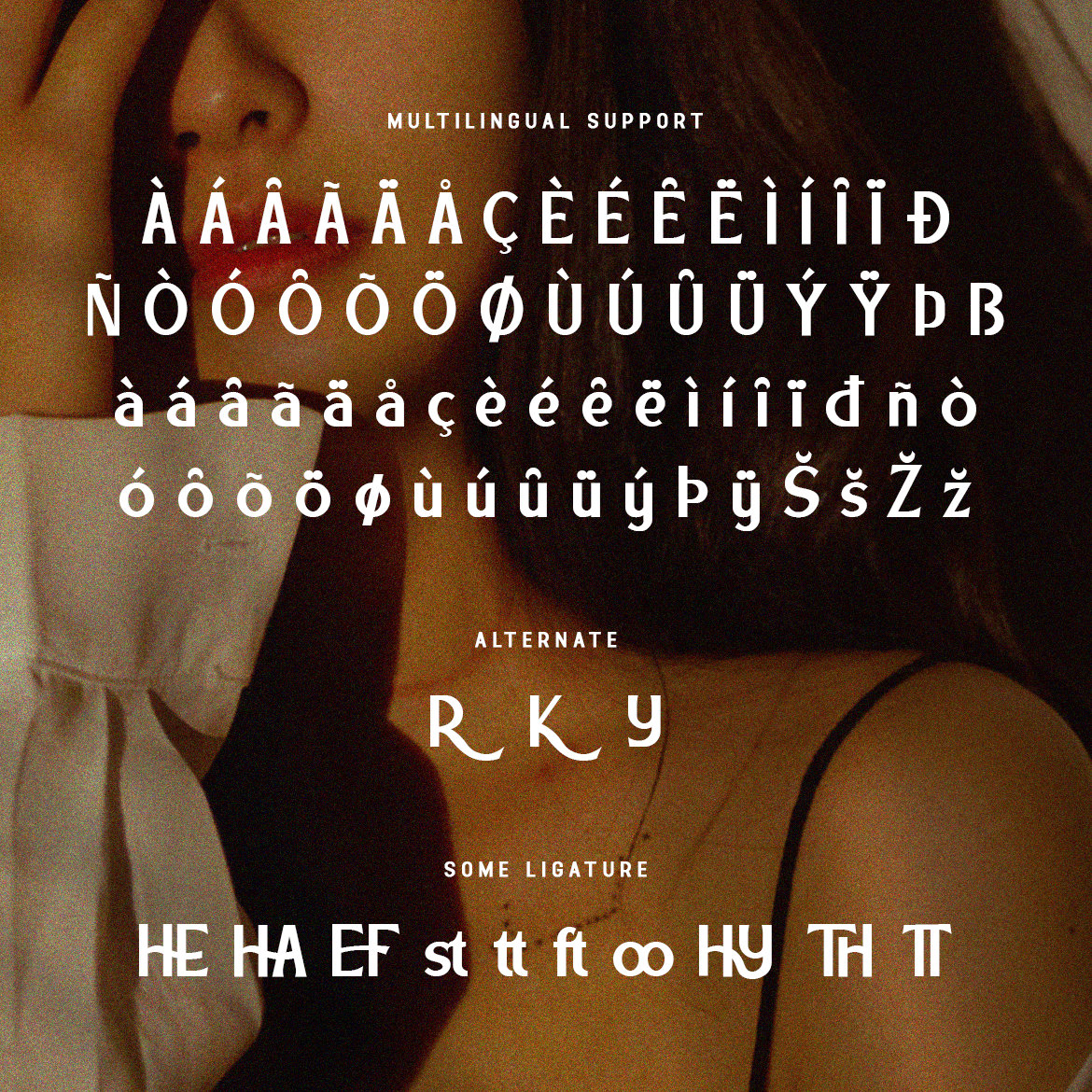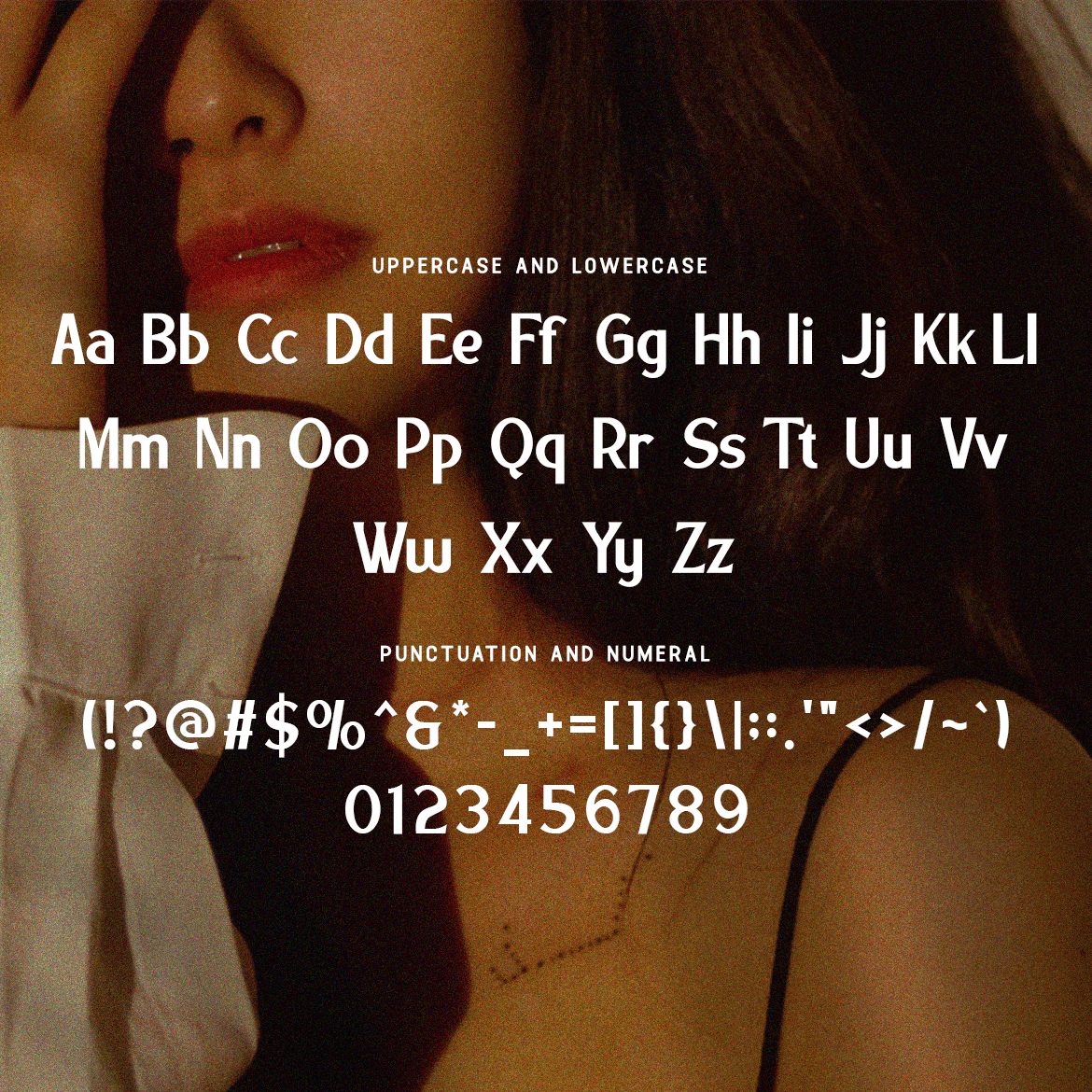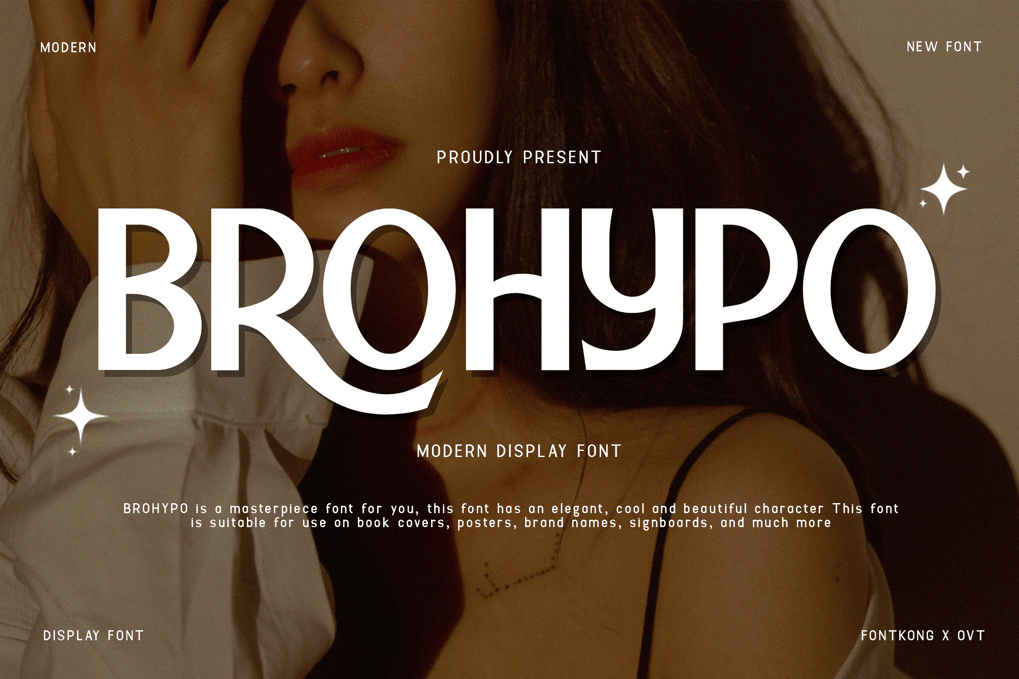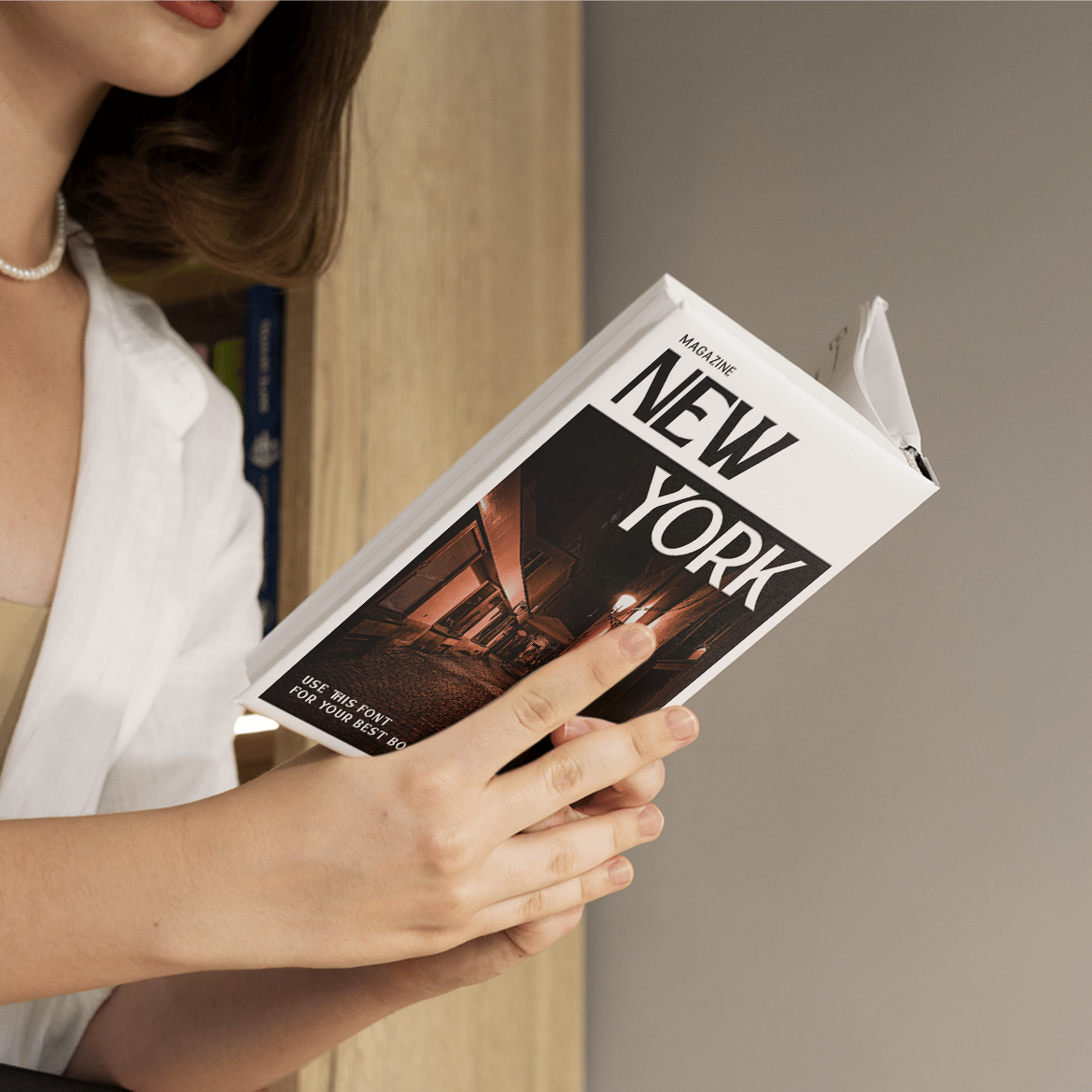
Brohypo – A Modern Display Font
Crafted with meticulous detail, Brohypo features robust characters that offer excellent readability and visual appeal. Its bold design makes it ideal for headlines and display text, providing a memorable and commanding presence. The font’s versatility allows it to seamlessly adapt to various design contexts, from digital screens to printed materials, making it a valuable asset for any designer.